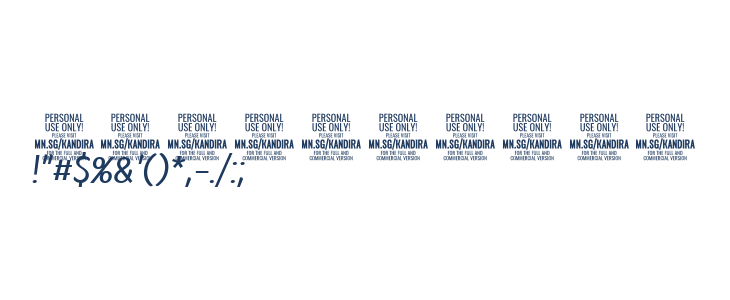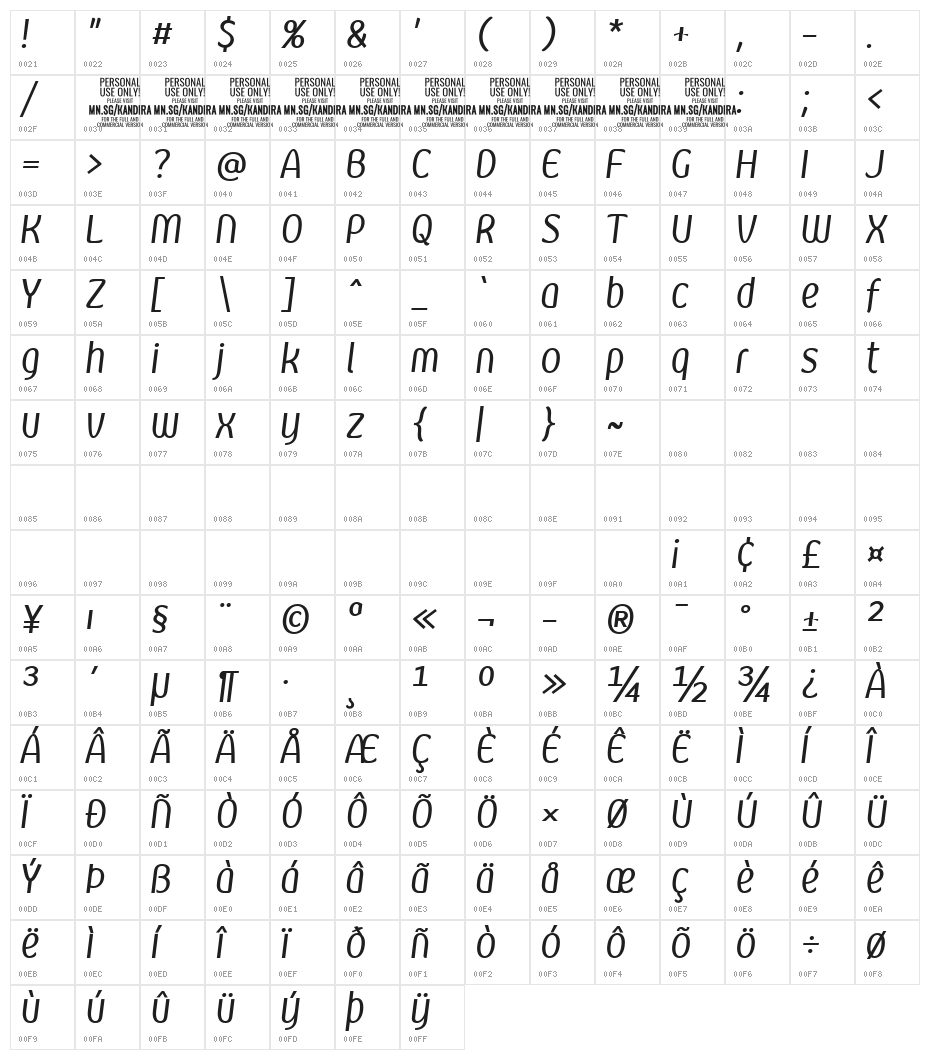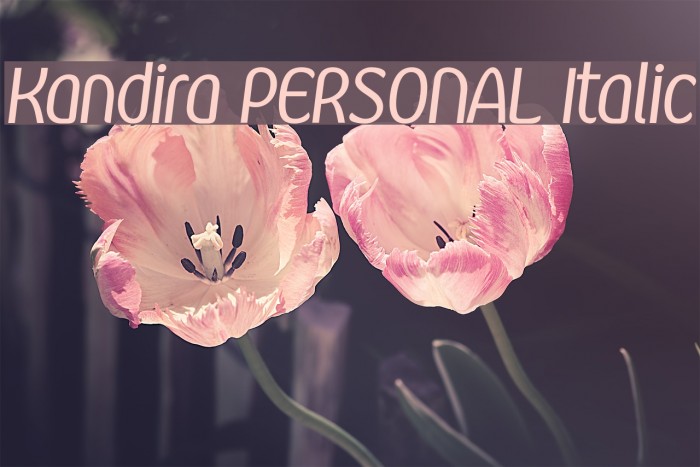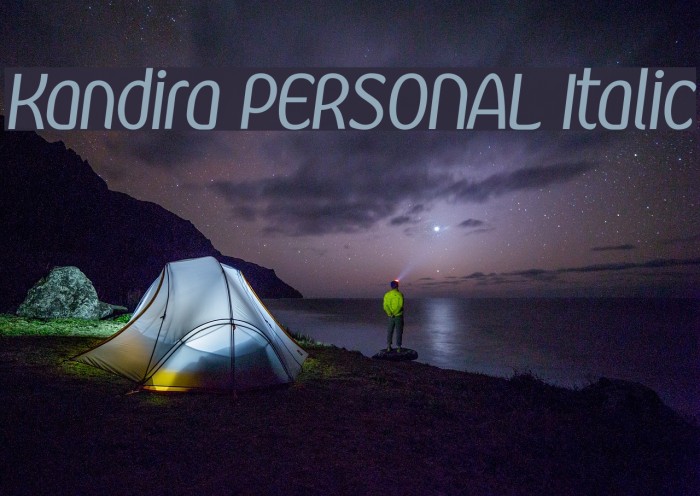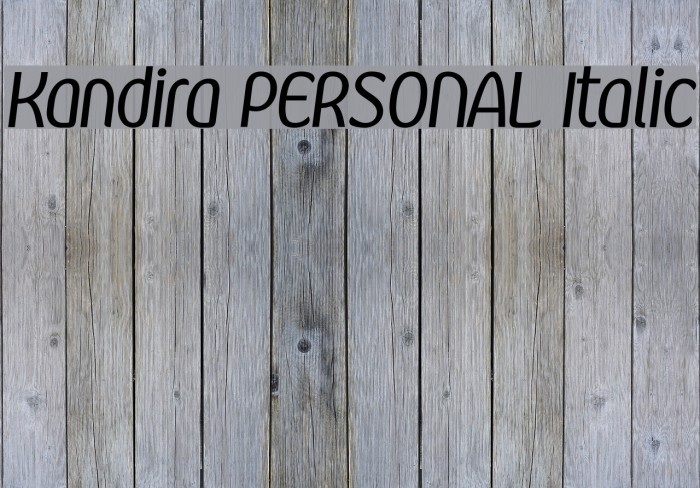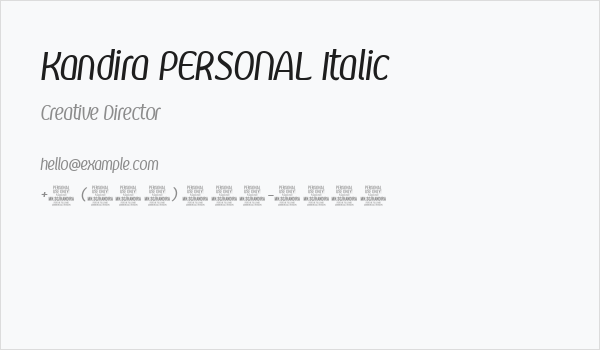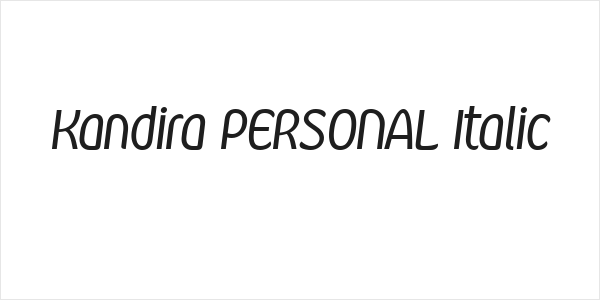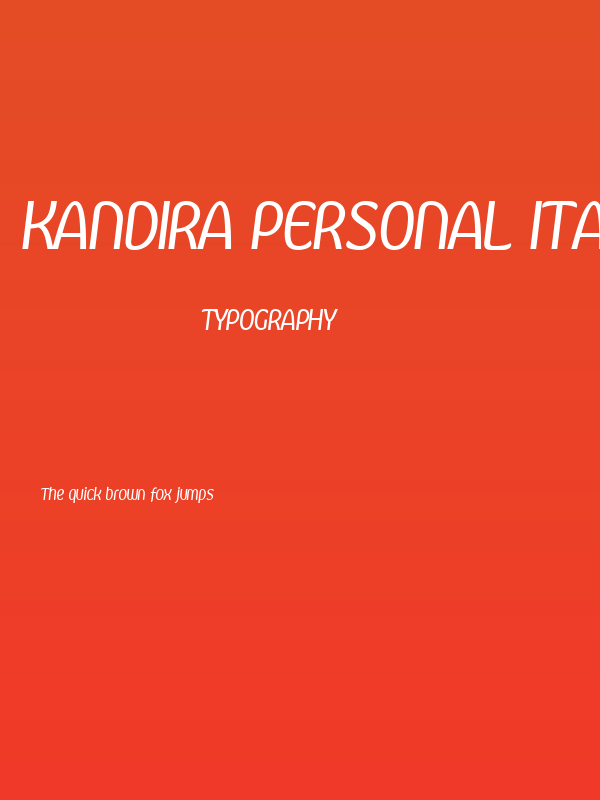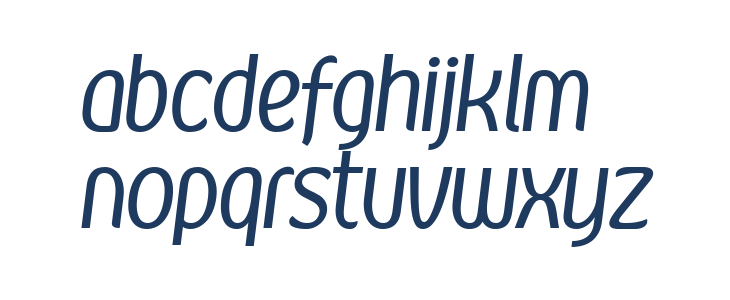
Kandira PERSONAL Italic Font
Kandira PERSONAL Italic Description
This font features a sleek, italicized style with smooth curves and a modern aesthetic. The letters are slightly elongated, giving a sense of motion and elegance. The uppercase and lowercase letters maintain a consistent flow, with rounded edges and a uniform stroke width. The numerals and special characters complement the alphabet with similar design elements, ensuring a cohesive look across all characters. This font is well-suited for projects that require a contemporary and stylish appearance.
Use CaseHeadlines, Logos, Branding
Proposed ProjectsIdeal for branding, advertising, and editorial design projects that require a modern and stylish touch.